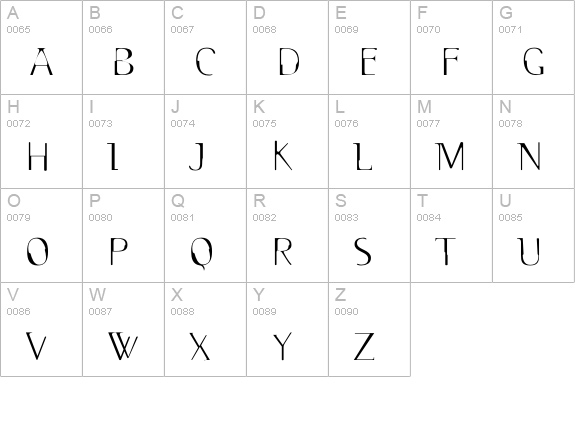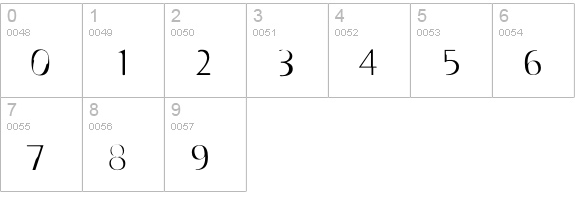
2RebelsDeux-Light is a refined, elegant variant in the 2RebelsDeux typeface family \xE2\x80\x94 well suited to elegant body text, refined sub-headings, and luxury branding.
Introducing 2RebelsDeux-Light font, a sleek and modern typeface that exudes sophistication and elegance. This font is perfect for adding a touch of class to any design project, whether it be for branding, advertising, or creative artwork. With its clean lines and stylish curves, 2RebelsDeux-Light font is versatile and eye-catching, making it a great choice for a wide range of applications. Whether you're creating a logo, designing a website, or working on a print project, this font is sure to make a statement. Best of all, 2RebelsDeux-Light font is available for free download at FontsMarket.com. This means you can easily access this stunning font and use it in your projects without any cost. Don't miss out on this opportunity to enhance your designs with the chic and contemporary style of 2RebelsDeux-Light font. Download it today and let your creativity shine!